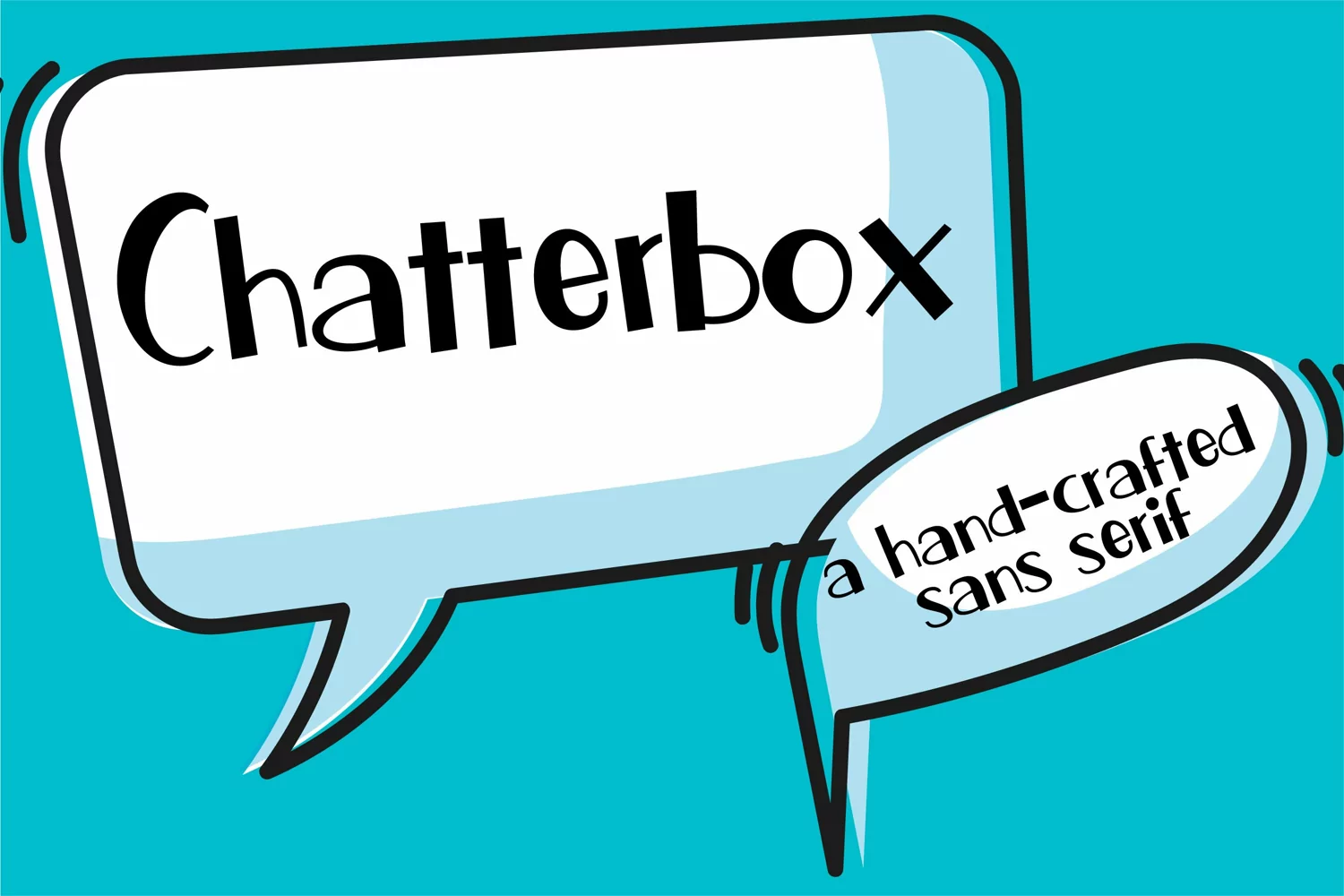
Chatterbox is a cool duo styled display font (classic and 3D). Whether you are using it for cartoon-related designs, children games, quotes, titles, brand names, book covers, posters, or just any creation that requires a touch of joy, this font is a great choice. Includes both regular, bold, and 3D.